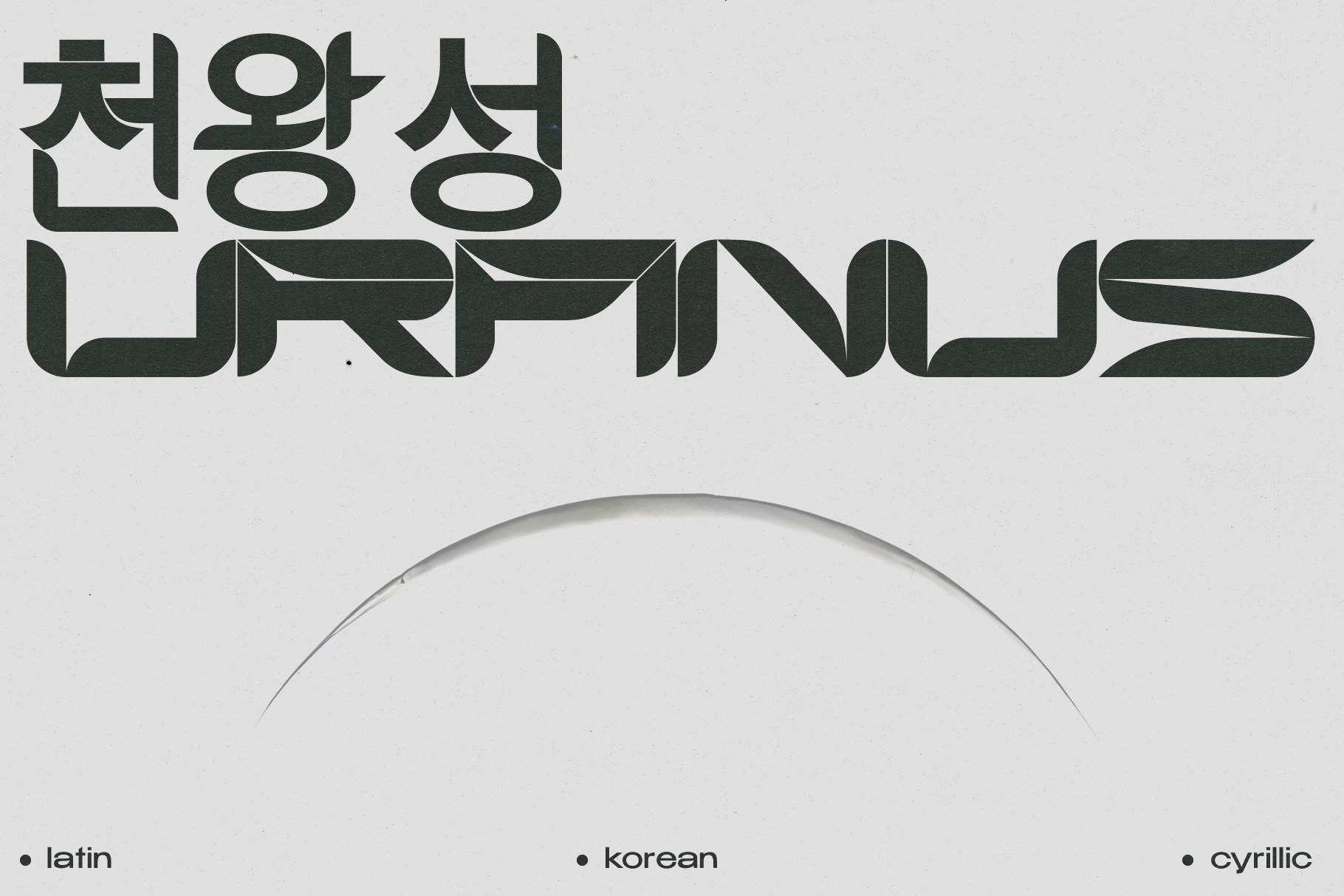
Uranus Typeface
Uranus is a futuristic font inspired by space and extraterrestrial civilizations. The proportions of the letters are wide, the elements of the letters have organic curves, reminiscent of the design of streamlined spaceships.
What gives the font a special character is the excessive contrast between the upper element and the crossbar in letters such as A, B, E, F, K, P, R. In these letters, there is a barely noticeable intra-letter gap in the form of a line. Due to this contrast and rounded elements in these letters, a negative space of a triangular shape also turned out.
Particular attention should be paid to the broad language support for the font. The font has support for Latin, extended Cyrillic, and Korean (2780 base syllables).
Total glyphs: 3562.
Uranus is well-suited for large typography, logos, and any other design related to futurism and space.